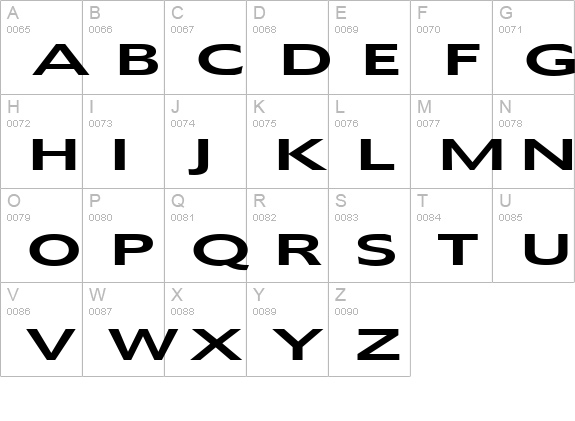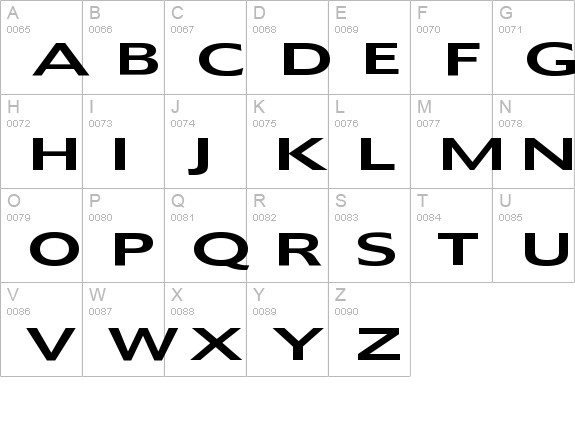
Adams Extended Normal is the standard, neutral, extended-width variant in the Adams typeface family \xE2\x80\x94 well suited to general body text, paragraphs, and standard typographic work.
Adams Extended Normal font is a versatile and modern typeface that exudes elegance and sophistication. Its clean lines and extended letterforms make it perfect for a wide range of design projects, from branding to editorial layouts. With a timeless appeal and a sleek appearance, Adams Extended Normal font effortlessly captures attention and adds a touch of refinement to any visual composition. What sets Adams Extended Normal font apart is not just its aesthetic appeal, but also its functionality. Whether you're designing a logo, a website, or a poster, this font will bring a sense of professionalism and style to your work. Its legibility and readability make it a reliable choice for conveying your message clearly and effectively. The best part? Adams Extended Normal font is available for free download at FontsMarket.com. This means you can easily access this high-quality font and elevate your design projects without any cost. Don't miss out on the opportunity to enhance your creations with the timeless elegance of Adams Extended Normal font. Download it today and see the difference it can make in your designs!